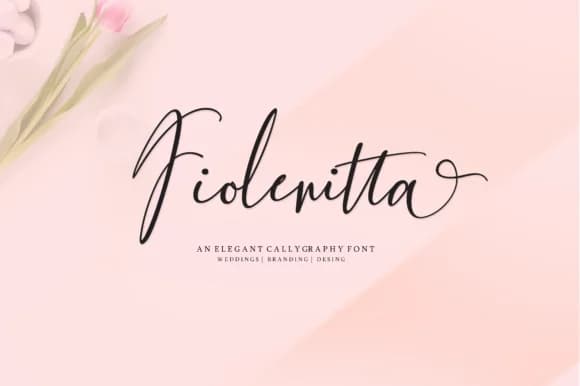
Fiolenitta by mightype89 is a flowing calligraphy font that brings refined elegance to handwritten lettering projects. With 444 glyphs available, this script offers extensive character support for multilingual designs and special typographic flourishes. The font's smooth, connected letterforms strike a balance between legibility and ornamental appeal, making it equally at home in display headlines and body-text applications where a personal, handwritten sensibility strengthens the overall design impact.
This font thrives in projects that demand sophistication without straying into excessive formality. Designers turn to flowing calligraphy scripts like this for wedding invitation suites that set an elegant tone, luxury beauty and skincare packaging seeking a premium aesthetic, personalized greeting card designs infused with handwritten warmth, and upscale branding initiatives for boutique businesses and independent designers who need a distinctive visual signature. The comprehensive glyph set ensures you won't encounter character limitations when working with multiple languages, incorporating special symbols, or exploring decorative alternates throughout your compositions.
Fiolenitta Font is a script font that shines as a display or heading face. Pair it with a clean sans-serif or serif font for body text β the contrast creates a clear hierarchy while the two styles stay balanced and easy to read.